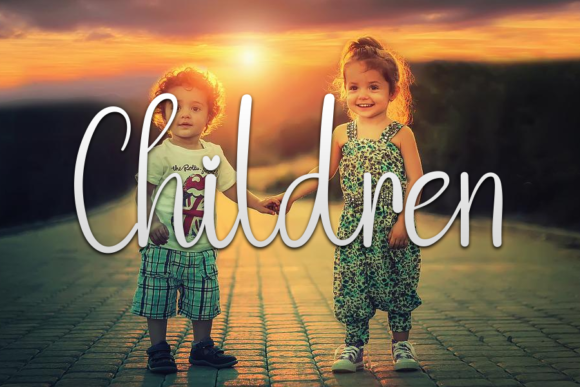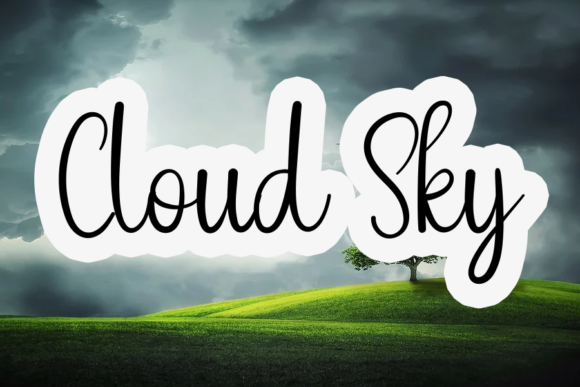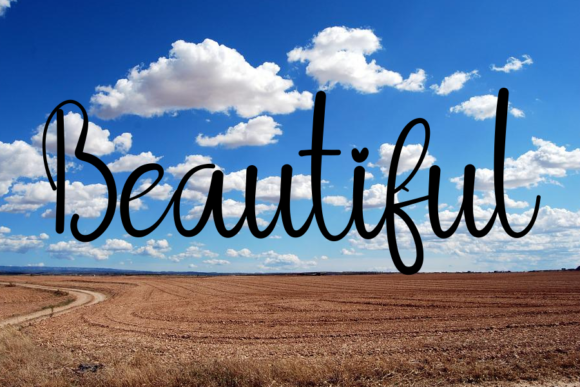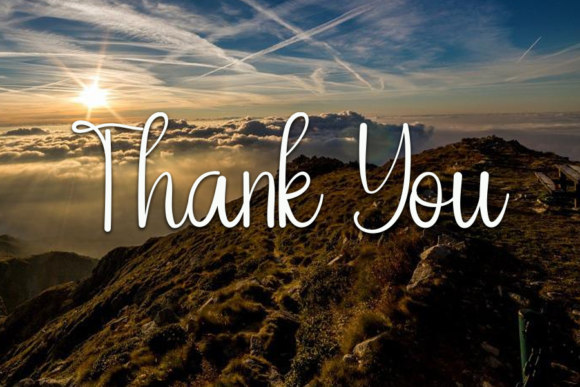
Rabbit Font
About Rabbit Font
Introducing Rabbit, a romantic handwritten font that adds an extra touch of cuteness to your messages with hearts replacing dots on characters like “i” and “j”. This font is designed to infuse a joyful and romantic ambiance into each of your projects, making it a perfect fit for various applications, including branding, logos, wedding materials, greeting cards, fashion, lookbooks, marketing promotions, and any scenario where you aim to strike a balance between fancy elegance and casual charm.
The romantic essence of Rabbit becomes evident in its handwritten style, complemented by the playful inclusion of hearts. Imagine this font gracing wedding invitations, where its romantic charm creates an endearing and memorable atmosphere for the celebration of love. Envision it adding a touch of whimsy to your brand’s identity, or enhancing the visual appeal of fashion-related materials with its casual yet refined aesthetic.
Rabbit seamlessly adapts to diverse design contexts, becoming a versatile asset in your creative toolkit. Whether you’re aiming for a fancy and elegant look or a more casual and approachable vibe, this font aligns with your vision, adding a layer of sweetness and romance to your projects.
Embrace Rabbit as the go-to font when you want to make your messages super cute and romantic. Its unique touch, with hearts replacing dots, ensures that it stands out and adds an extra level of endearment to your designs. Let Rabbit transform each project into an adorable showcase of fancy elegance and heartfelt charm.